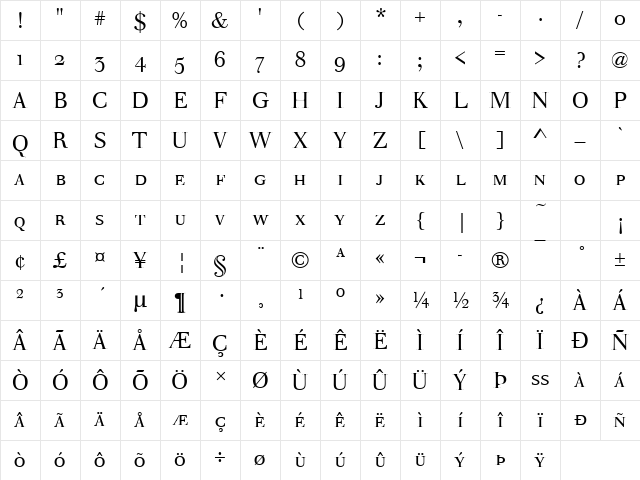
WalbaumStaSmaSCT Regular
Design Context for WalbaumStaSmaSCT
WalbaumStaSmaSCT is a composed and adaptable typeface that performs quietly and consistently across a wide range of design contexts.